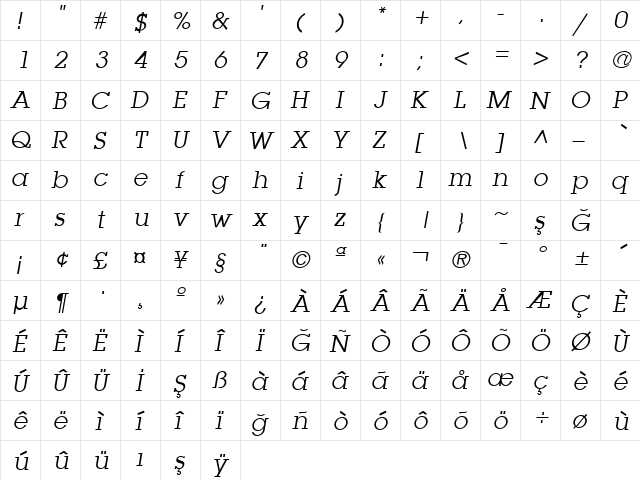
McLean Italic
Design Context for McLean Typeface
McLean offers clean, dependable letterforms without strong stylistic allegiance, making it a practical choice for designers who need flexibility. The dynamic lean of this cut emphasises speed and emphasis in any layout.
Pro Tip: Try McLean for annotation and caption copy alongside an upright companion — the contrast in angle creates a dynamic but ordered typographic system.